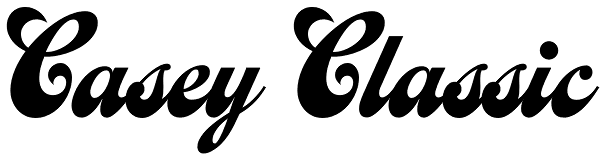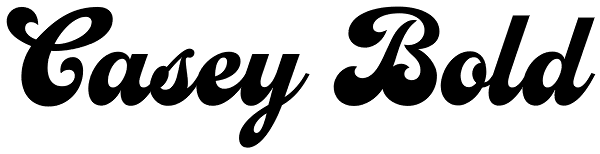
Casey
Casey, Leslie Cabarga’s latest script, recalls Casey at the Bat, Ernest Lawrence Thayer’s vivid old baseball poem. Once, fat-bottomed scripts like Casey were everywhere but they barely survived as logos for Campbell’s soup, Ford, Coca-Cola and, of...
Casey Classic
Casey Bold
Casey Ultra